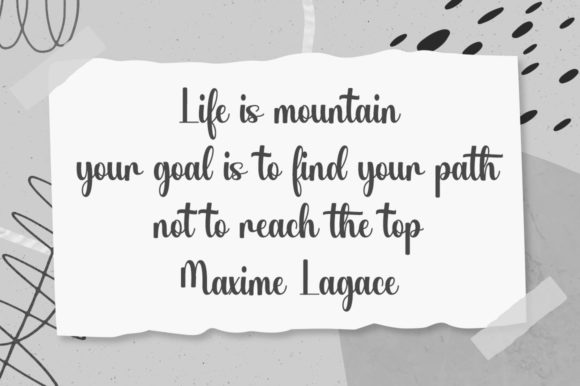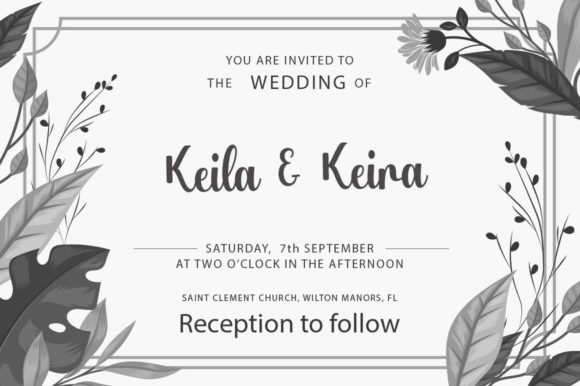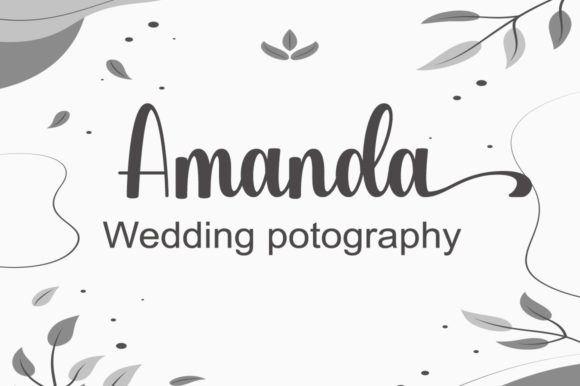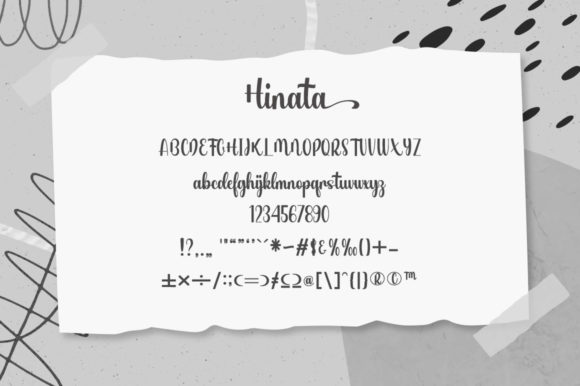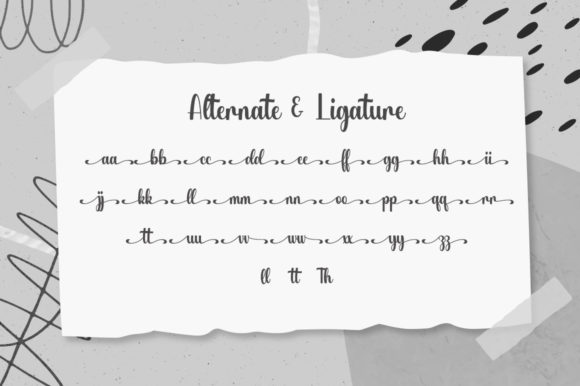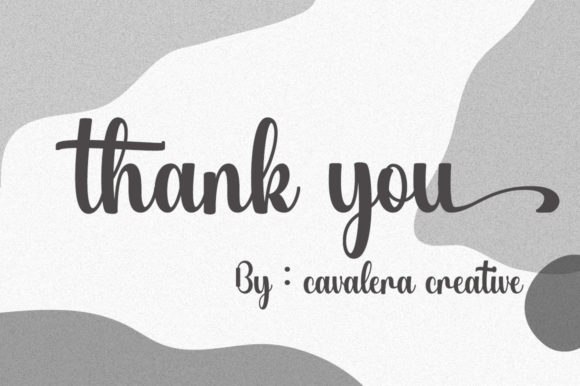
Introduction to Hinata Font
There’s something magical about creating a new design from scratch. The blank page, the endless possibilities, and the thrill of bringing your vision to life. For many designers, it’s a moment that never gets old. But what makes a design truly stand out? Is it the colors, the shapes, or the typography? For those who crave a touch of elegance and sophistication, the Hinata Font is sure to be a game-changer.
With its flowing handwritten style, Hinata Font is the perfect design resource for creatives who want to add a personal touch to their projects. Whether you’re working on a logo, a brochure, or a social media graphic, this font is sure to make your design pop. And the best part? Hinata Font is PUA encoded, making it easy to access all the glyphs and swashes you need to create high-quality designs.
Key Features of Hinata Font
- High-quality design resource ideal for various creative projects, including digital art and graphic design.
- Unique, handcrafted design elements that set it apart from other fonts in the market.
- Perfect for designers seeking a distinctive and high-quality design resource for their next creative project.
Honest Review: Hinata Font
As a designer, I’m always on the lookout for high-quality design resources to enhance my creative projects. Recently, I stumbled upon the Hinata Font, and I’m excited to share my honest review with you.
- ✨ The font’s minimalist design makes it perfect for modern and sleek projects.
- ✨ The transparent background option allows for seamless integration with any design element.
- ⚠️ The font library is relatively small, which may not be ideal for designers working on complex projects.
- ⚠️ Some users may find the font’s simplicity too plain for certain design styles.
Overall, I’m impressed with the Hinata Font’s quality and versatility. While it may not be perfect for every design project, it’s definitely a great addition to any designer’s toolkit. If you’re looking for a clean and modern font for your next creative project, I’d definitely recommend giving the Hinata Font a try.
When using Hinata Font, remember to experiment with different font sizes and styles to get the most out of it. Hinata Font is particularly useful for creating titles, headings, and captions in your design projects. You can also use it to add a touch of elegance to your website or social media graphics.